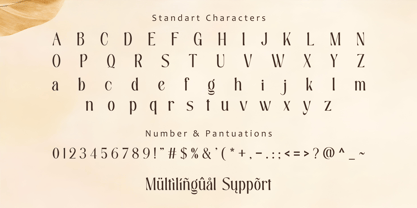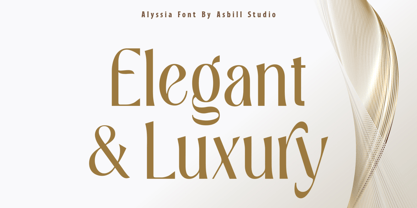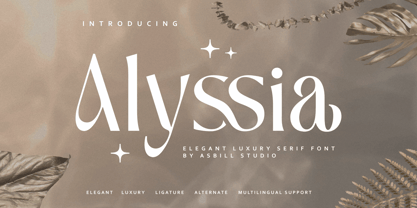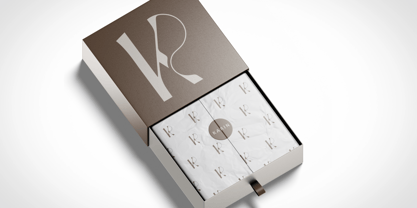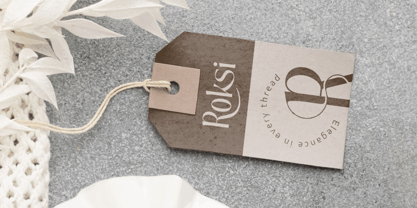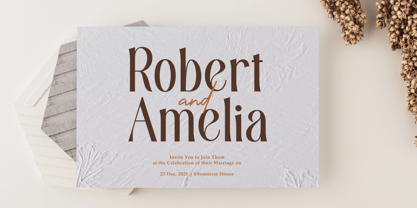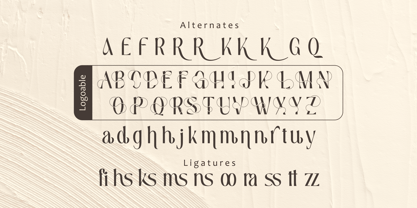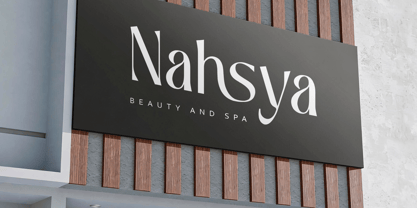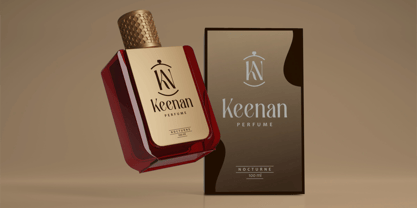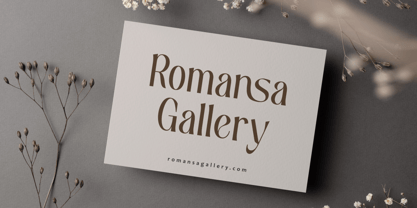
Alyssia
The Alyssia Font Family was designed by Ricky Ali and published by Asbill Studio. Alyssia contains 2 styles and family package options. More about this family
Introducing Alyssia, a refined luxury serif font designed to bring timeless elegance and sophisticated charm to every project. Featuring graceful letterforms, stylish alternates, and beautiful ligatures, Alyssia perfectly blends classic aesthetics with a modern, high-end feel.
Whether you're creating premium branding, fashion editorials, cosmetic packaging, wedding invitations, logos, social media graphics, or luxury product labels, Alyssia delivers a distinctive and memorable visual identity.
Carefully crafted with attention to detail, this typeface offers excellent readability while maintaining its artistic personality. Its versatile character set and make it easy to create unique typography with effortless elegance.
Elevate your designs with Alyssia—a sophisticated serif font that captures the essence of luxury, elegance, and modern refinement. Every letter is crafted to help your brand leave a lasting impression.